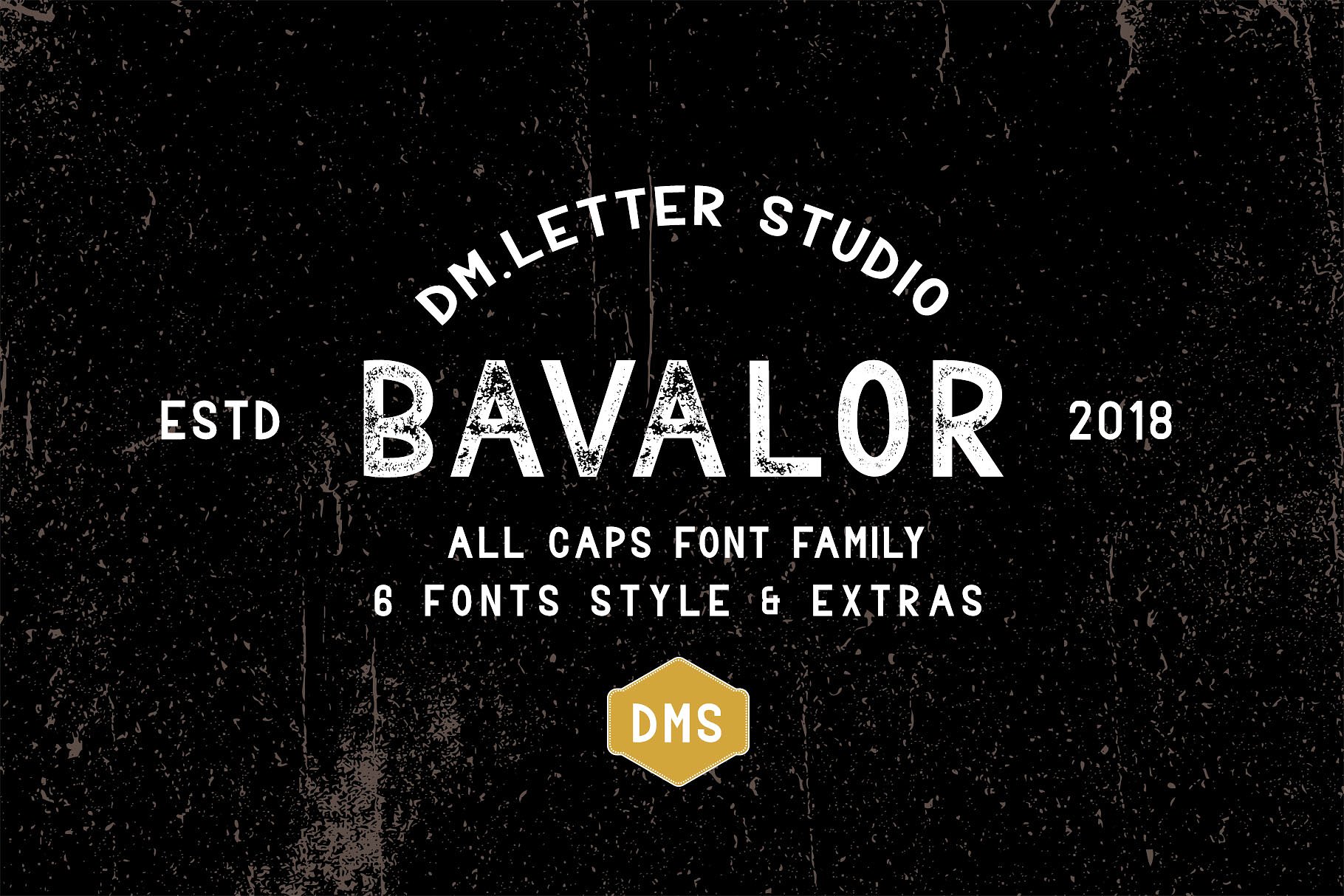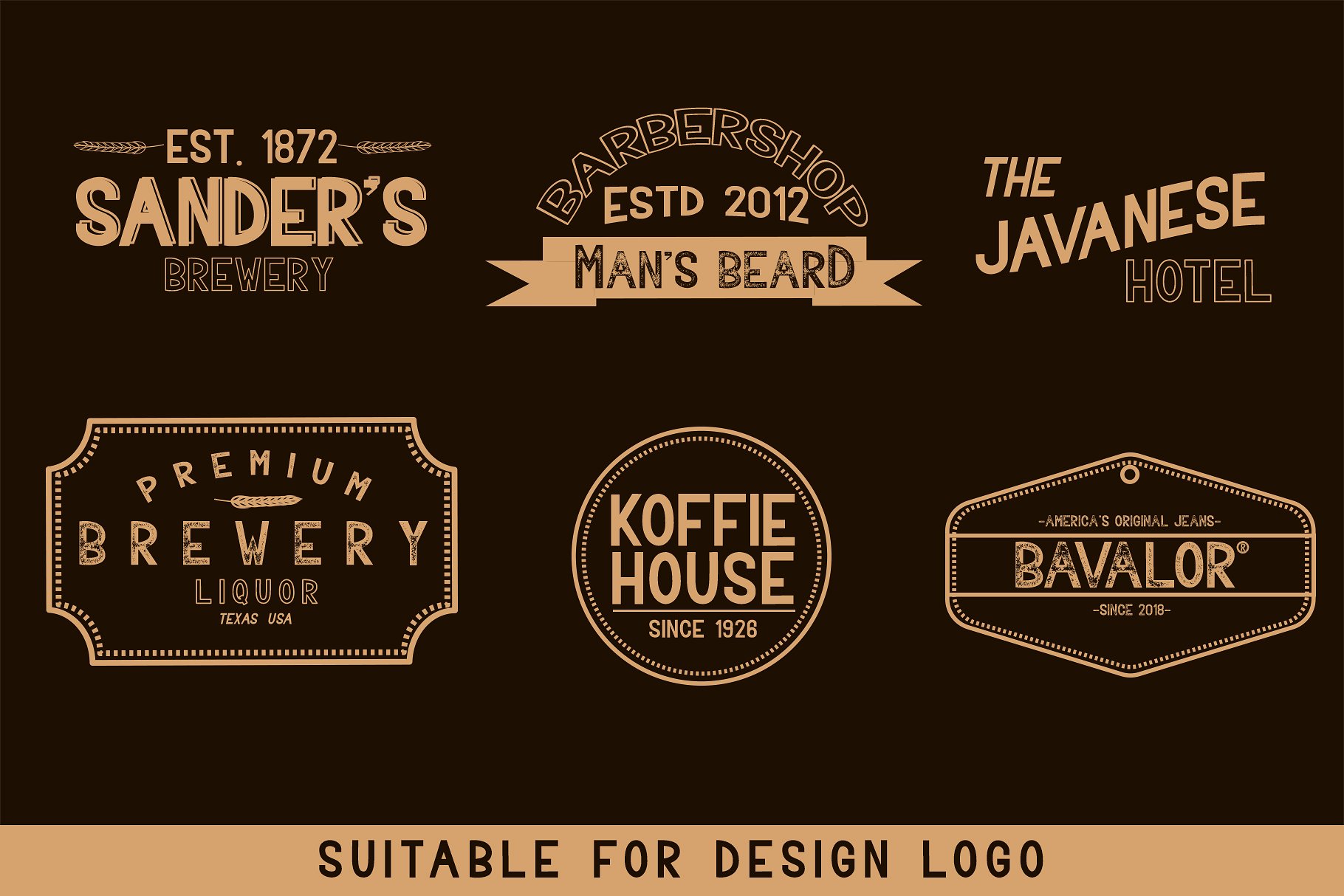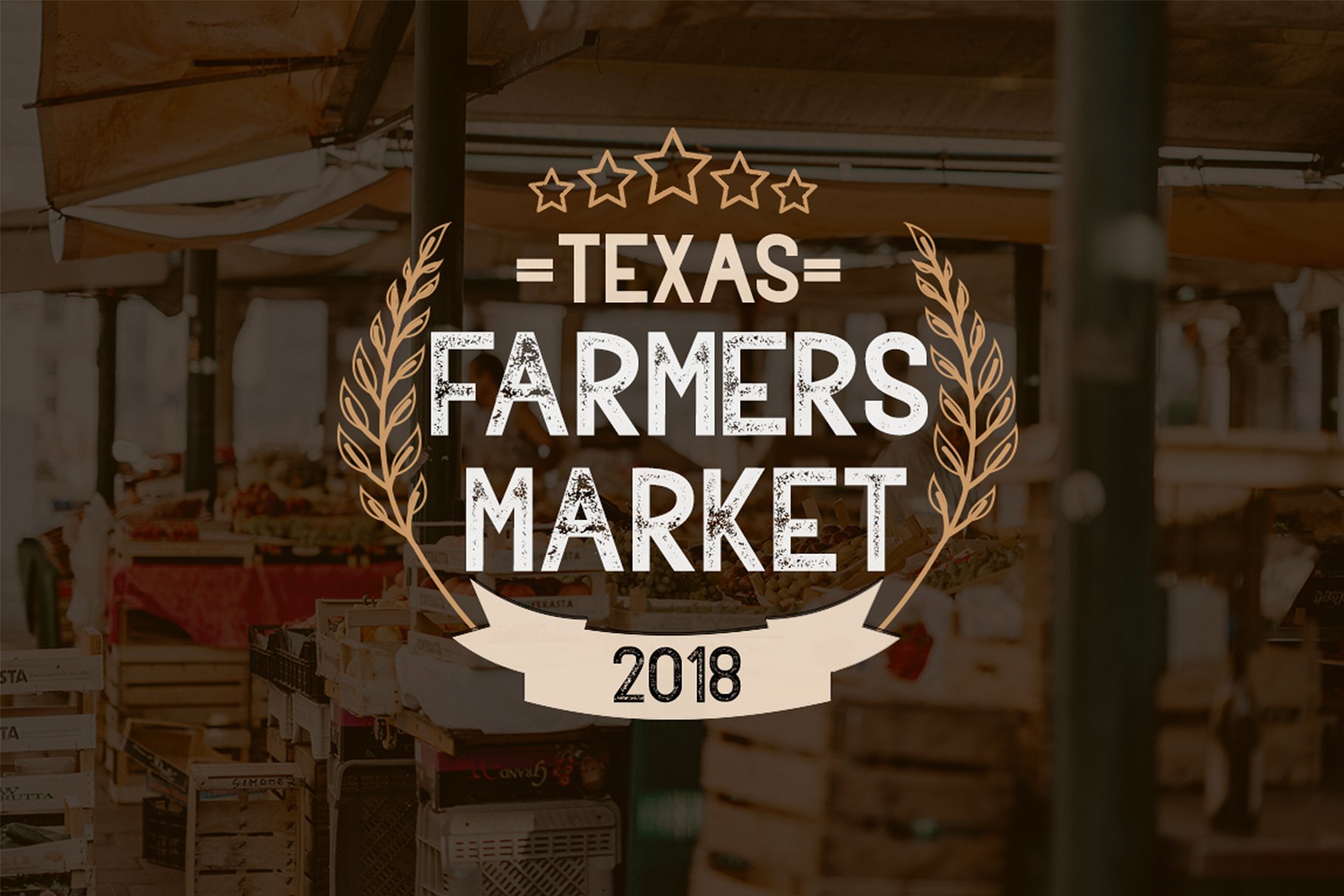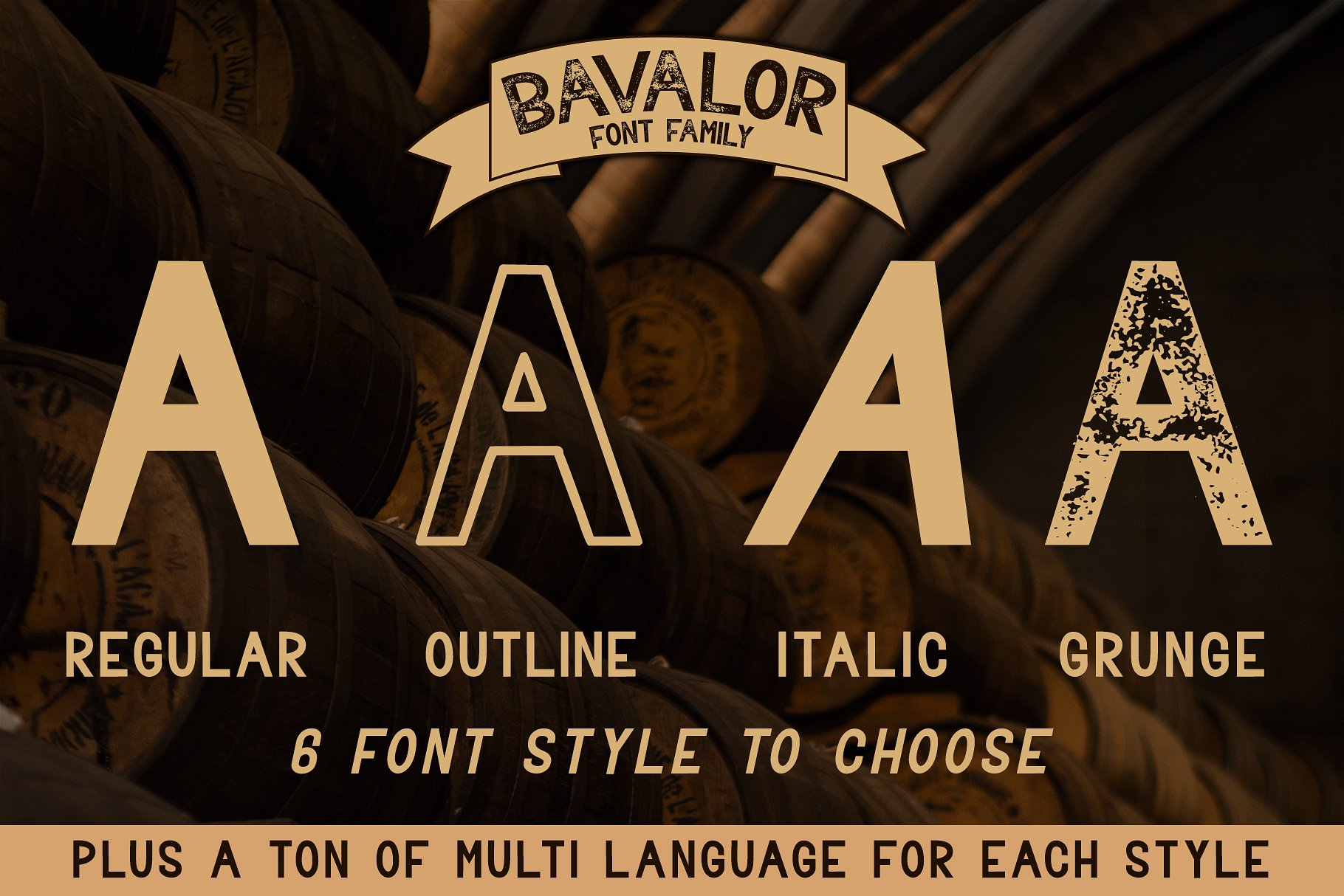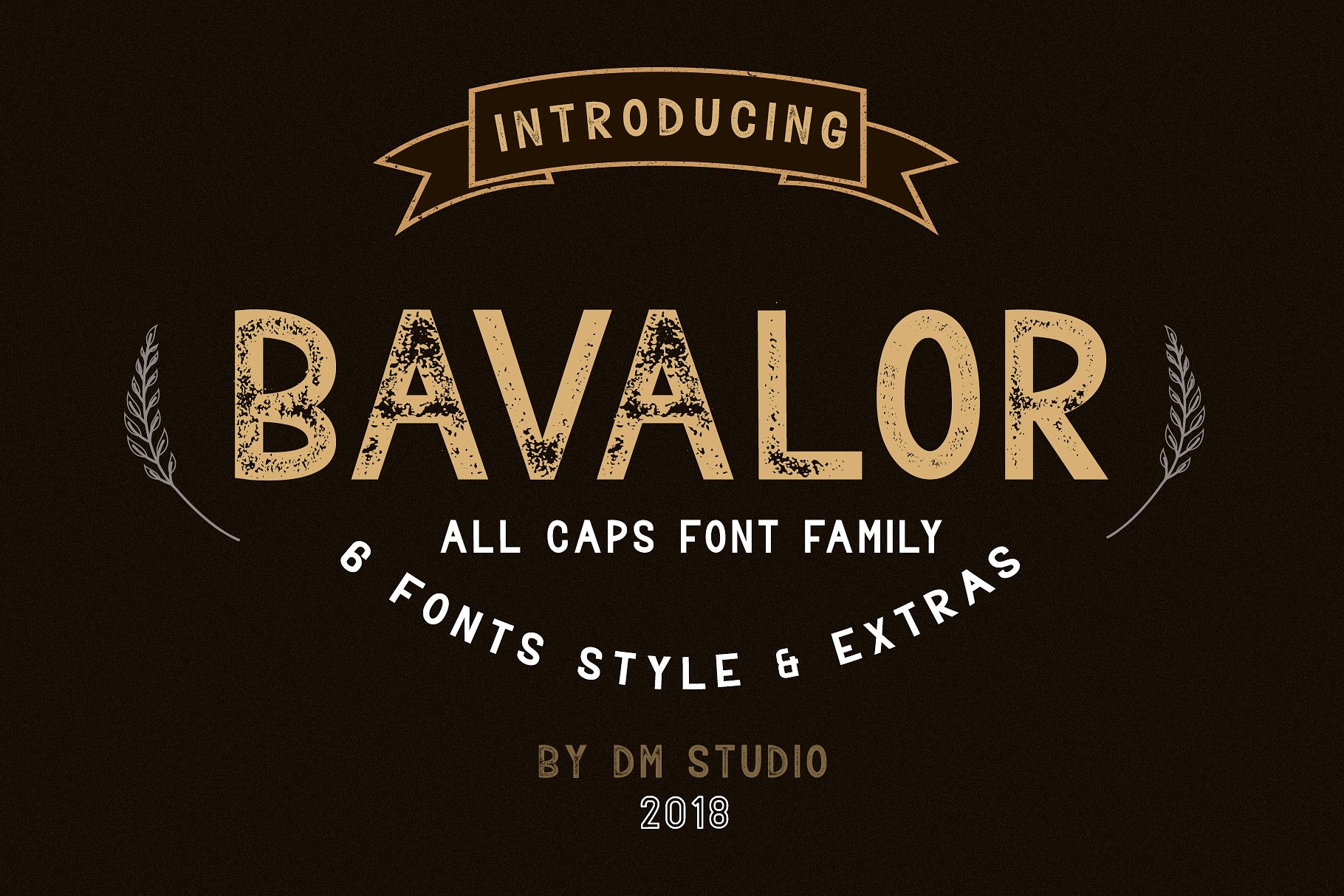
Bavalor Typeface
All caps font family with 6 fonts styles & extras. Introducing Bavalor Font Family. Bavalor designed by Dm.Studio. Bavalor Typeface the all in caps sans serif-font family. It includes regular, outline, and grunge version with normal & italic style. Bavalor has 6 OTF & TTF font files. Choose freely for your desired designs, pair between each version but also will great if you make it stand alone.This collection will create a unique, powerful design for any projects.